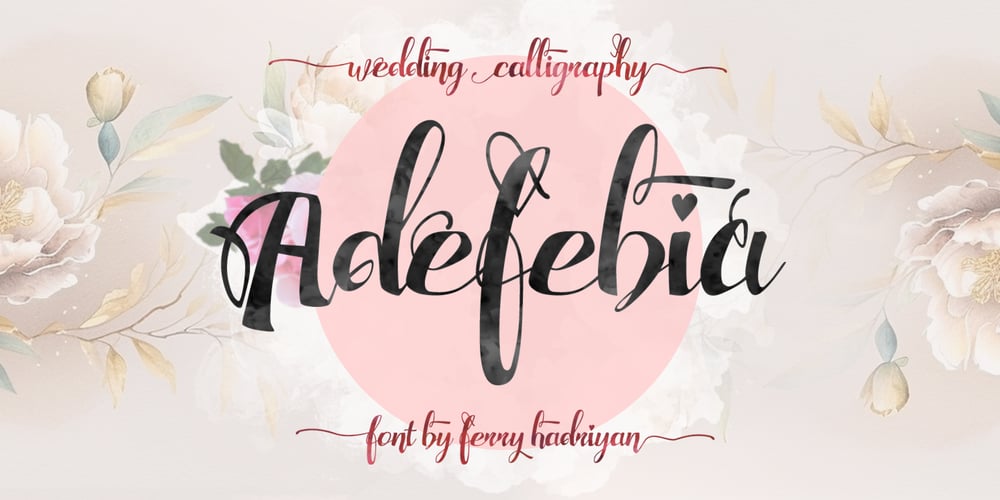
Adefebia
Adefebia font
Adefebia Font Family was designed by Ferry Hadriyan and published by FHFont. Adefebia contains 1 styles and family package options. Adefebia is a lovely feminine script font with love swashes decorative, Adefebia Font is specially dedicated and created for my beloved wife.